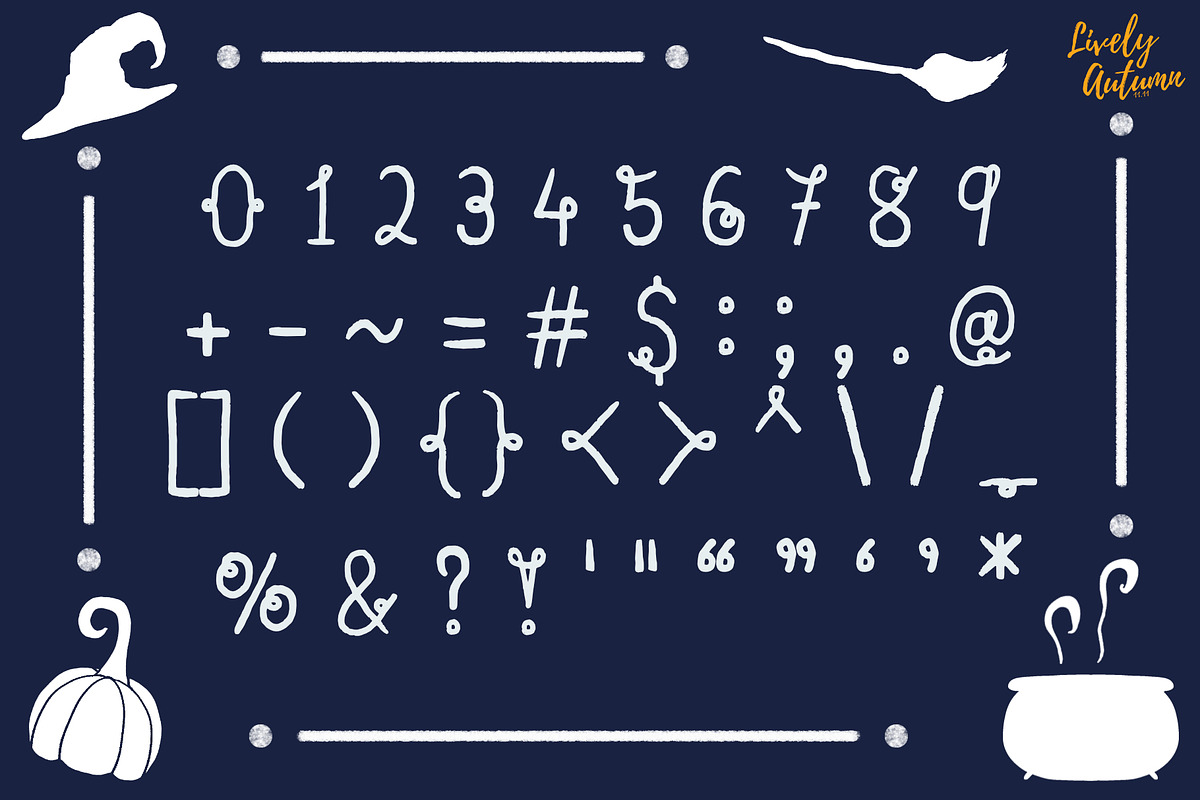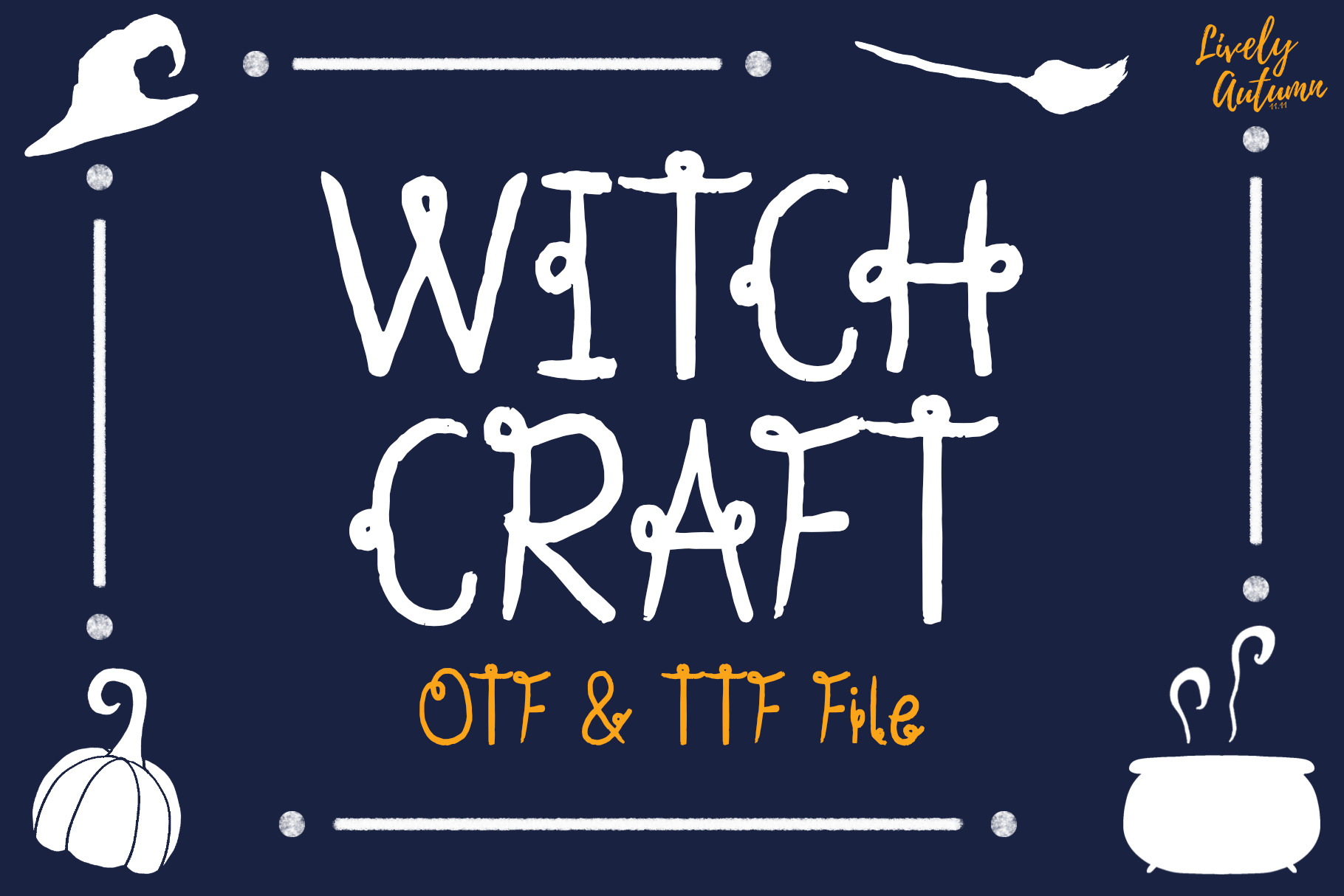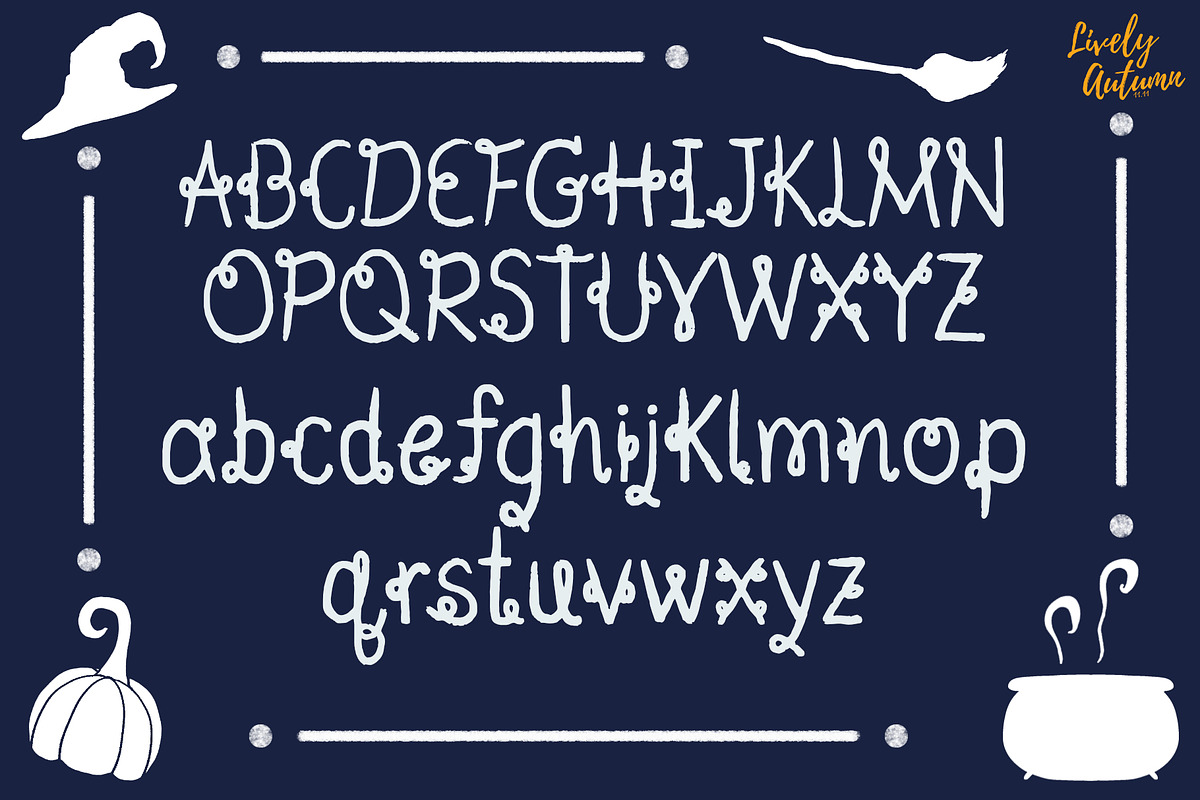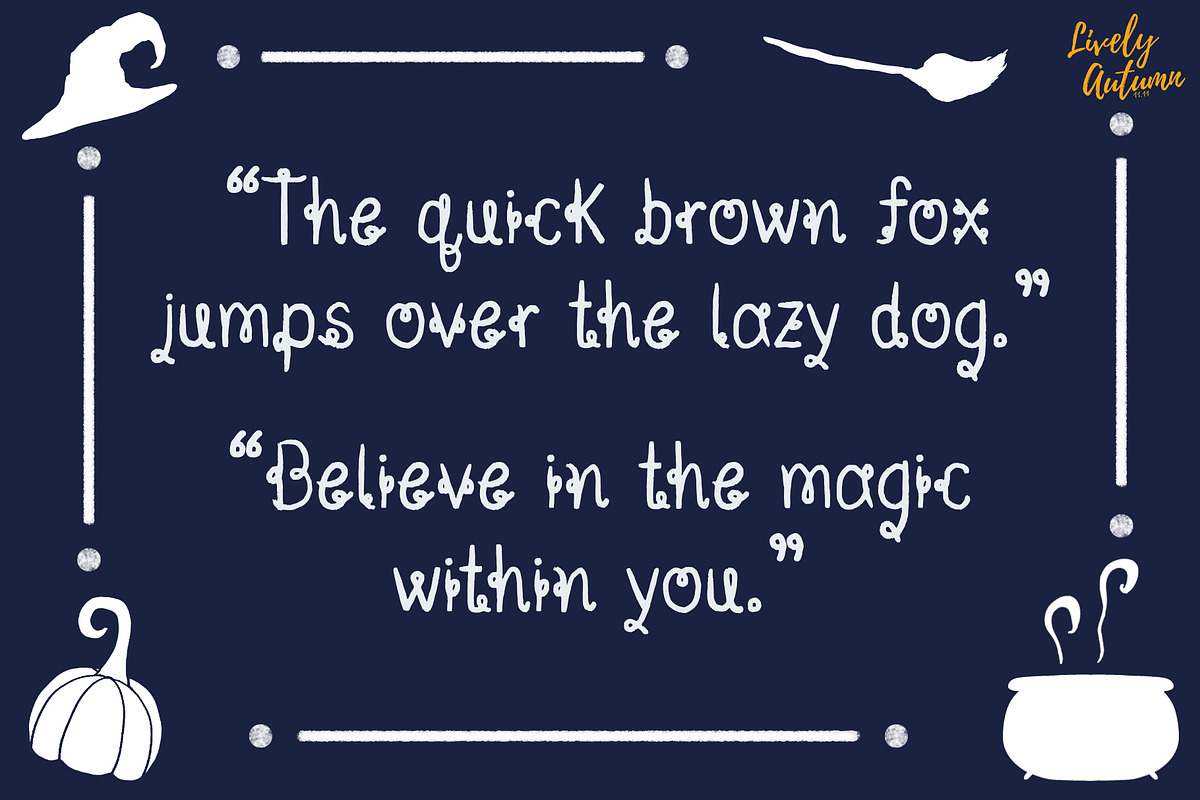
Witchcraft | Handwriting font
Witchcraft Font is a sans serif handwritten font with a knot tied to a letter. Perfect for your magical theme project, personal projects, and various projects. From invitations to posters, social media graphics, journals, and much more.